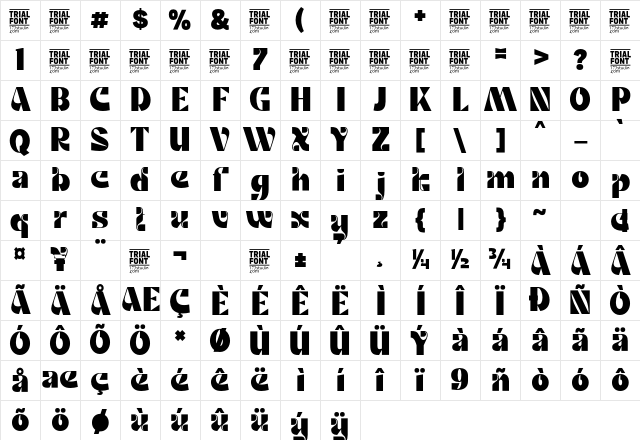
affiliate mastery demo Regular
Foundry: 177Studio.com
Designer: 177Studio.com
Design Context for affiliate mastery demo
affiliate mastery demo is a composed and adaptable typeface that performs quietly and consistently across a wide range of design contexts.